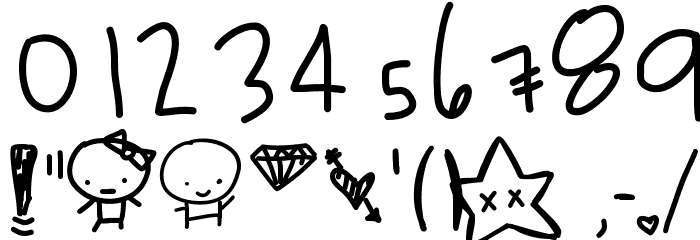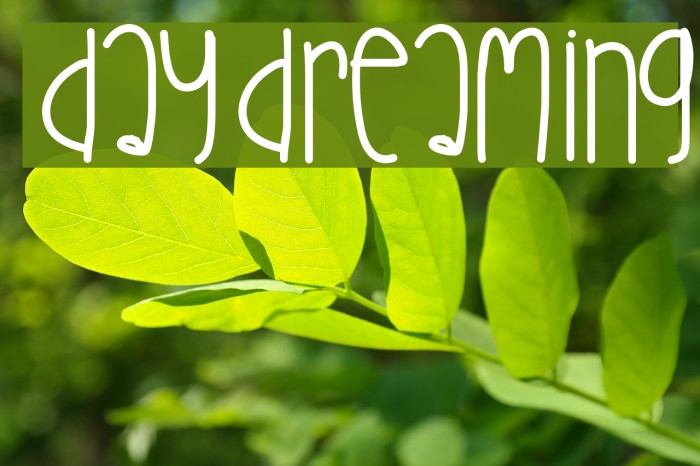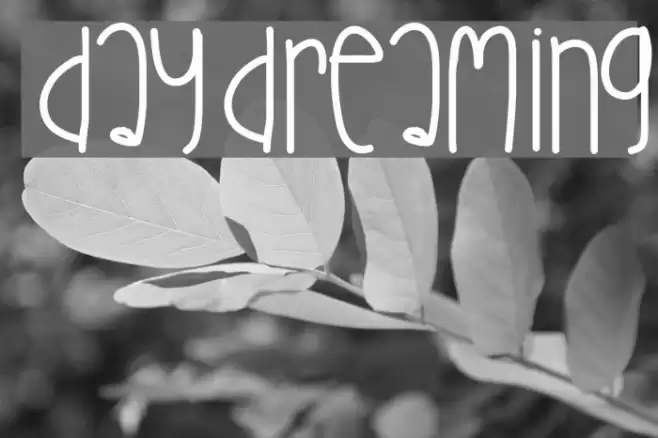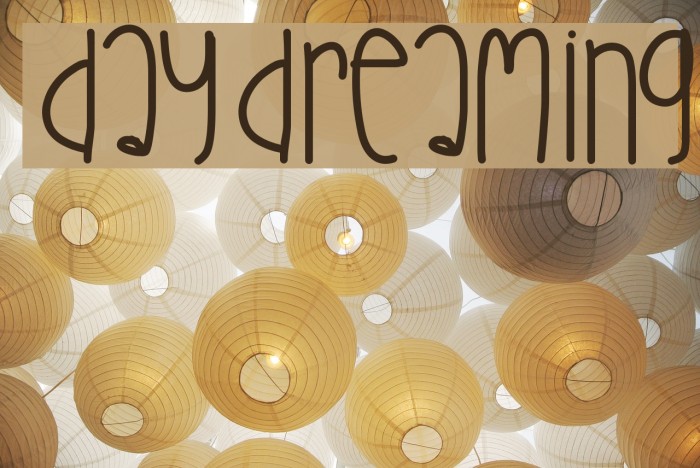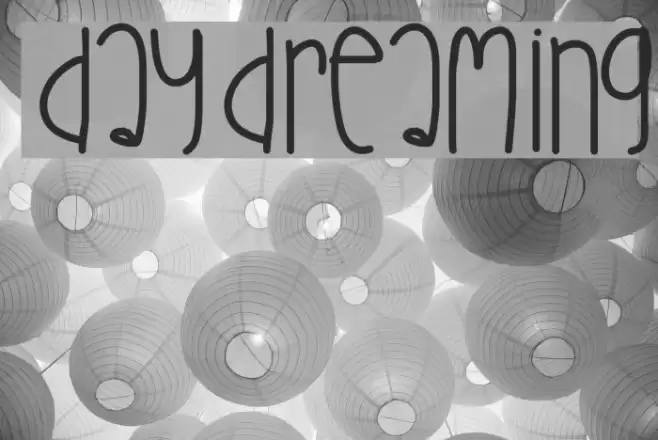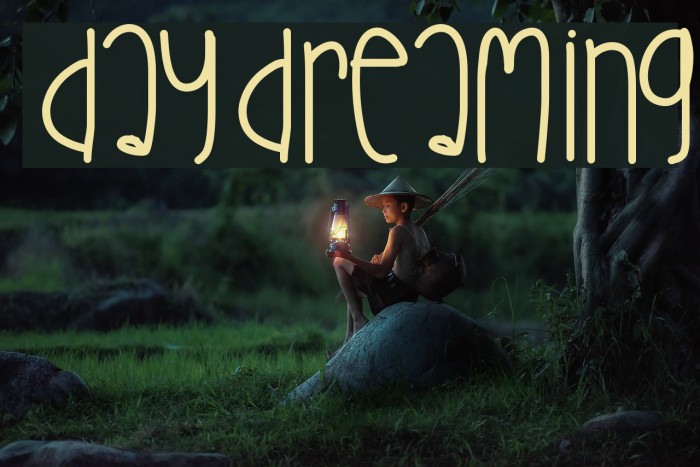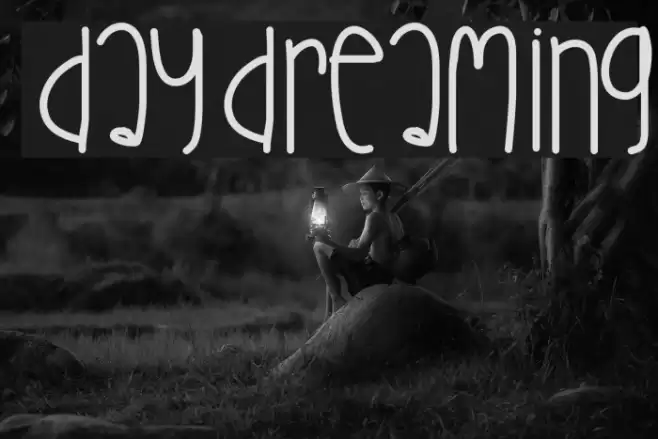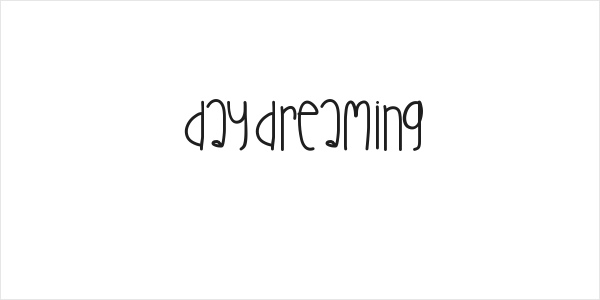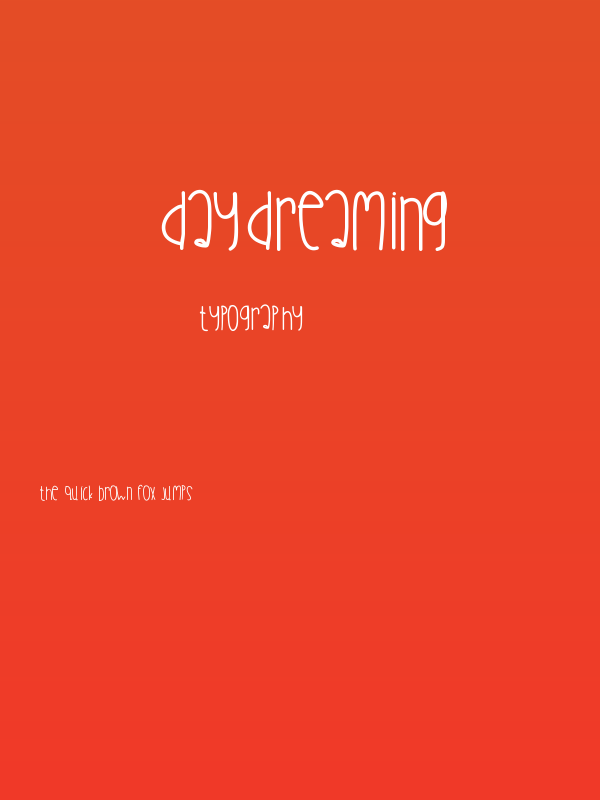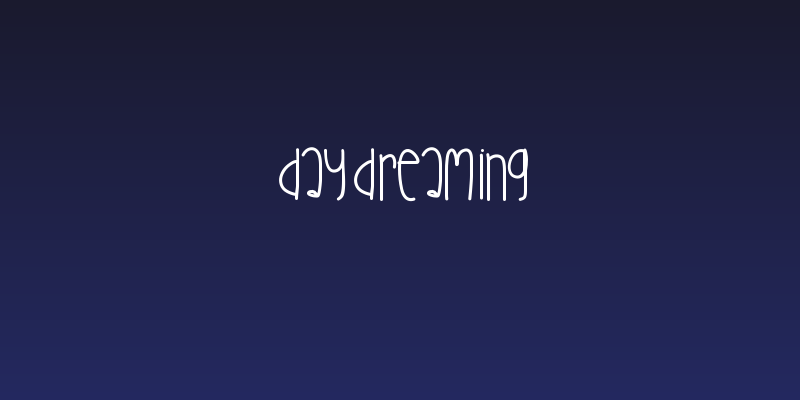
DayDreaming Font
DayDreaming Description
This playful and whimsical font features tall, narrow characters with a hand-drawn appearance. The letters have a consistent stroke width, giving them a clean and uniform look. The lowercase letters are slightly taller than usual, adding to the font's quirky charm. The numbers and special characters maintain the same playful style, with unique and creative designs that complement the overall aesthetic. The font's informal and friendly vibe makes it ideal for projects that require a touch of creativity and fun.
| Overall Style | Whimsical |
| Proposed Projects | Ideal for children's books, greeting cards, playful branding, and creative posters. |